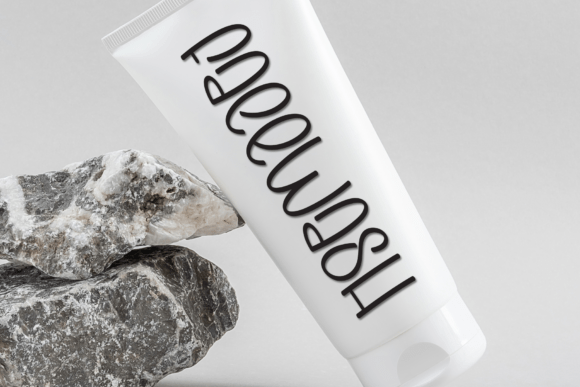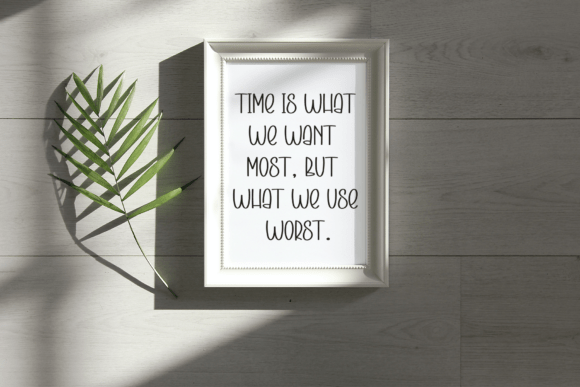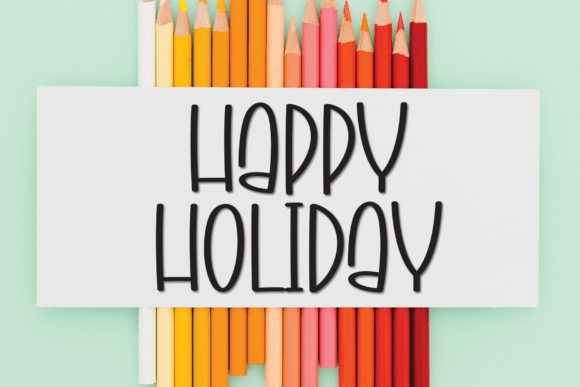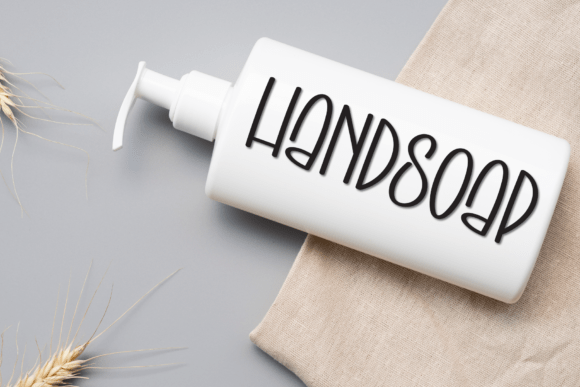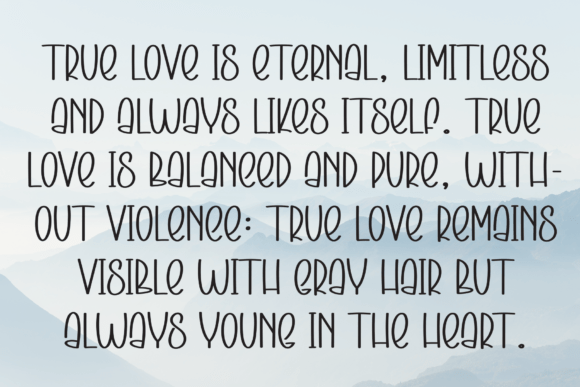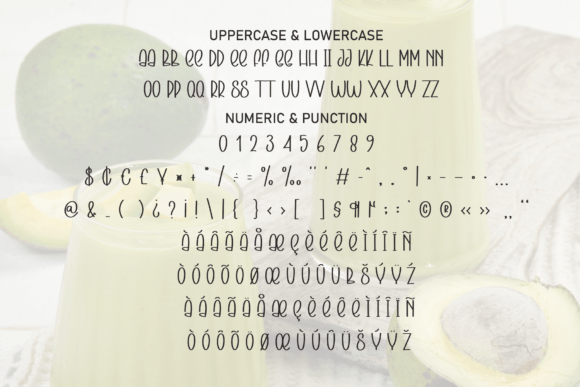
Introducing Avocado Juice Font: The Perfect Blend of Fun and Creativity
Are you tired of using the same old fonts for your design projects? Look no further than Avocado Juice Font, a casual display font that’s sure to bring a relaxed and playful vibe to any creative work. With its bold, approachable letterforms, Avocado Juice Font is perfect for headlines, posters, and branding projects that require a dash of fun and spontaneity.
The Characteristics of Avocado Juice Font
Avocado Juice Font is a unique and refreshing addition to the world of typography. Its key characteristics include:
- Bold and Approachable Letterforms: The font’s bold letterforms are designed to grab attention and make a statement. At the same time, they have an approachable and friendly feel that’s perfect for connecting with your audience.
- Casual and Relaxed Style: Avocado Juice Font has a laid-back, effortless style that’s perfect for creative projects that require a sense of fun and spontaneity.
- Playful Vibe: The font’s playful vibe is infectious and can add a touch of personality to any design project.
Uses for Avocado Juice Font
Avocado Juice Font is a versatile font that can be used for a wide range of design projects, including:
- Headlines and Titles: The font’s bold letterforms make it perfect for headlines and titles that need to grab attention.
- Posters and Flyers: Avocado Juice Font is a great choice for posters and flyers that require a playful and eye-catching design.
- Branding and Packaging: The font’s approachable and friendly feel makes it perfect for branding and packaging projects that require a personal touch.
- Social Media Graphics: Avocado Juice Font can add a touch of personality to social media graphics, such as Instagram posts and Facebook headers.
Why Choose Avocado Juice Font?
With so many fonts to choose from, why should you choose Avocado Juice Font for your design projects? Here are just a few reasons:
- Unique and Refreshing: Avocado Juice Font is a unique and refreshing addition to the world of typography. Its bold, approachable letterforms and casual style set it apart from more traditional fonts.
- Easy to Read: Despite its bold and playful style, Avocado Juice Font is easy to read and can be used for both short and long blocks of text.
- Versatile: Avocado Juice Font can be used for a wide range of design projects, from headlines and titles to posters and branding.
Tips for Using Avocado Juice Font
Here are a few tips for getting the most out of Avocado Juice Font:
- Use it for Headlines and Titles: Avocado Juice Font is perfect for headlines and titles that need to grab attention.
- Pair it with Other Fonts: Avocado Juice Font can be paired with other fonts to create a unique and eye-catching design.
- Experiment with Colors: The font’s playful vibe makes it perfect for experimenting with different colors and color combinations.
Avocado Juice Font is a casual display font that’s sure to bring a relaxed and playful vibe to any design project. With its bold, approachable letterforms and easygoing style, it’s perfect for headlines, posters, and branding projects that require a dash of fun and spontaneity. Whether you’re a designer, craft, or DIY enthusiast, Avocado Juice Font is a great choice for adding a touch of personality to your creative work.